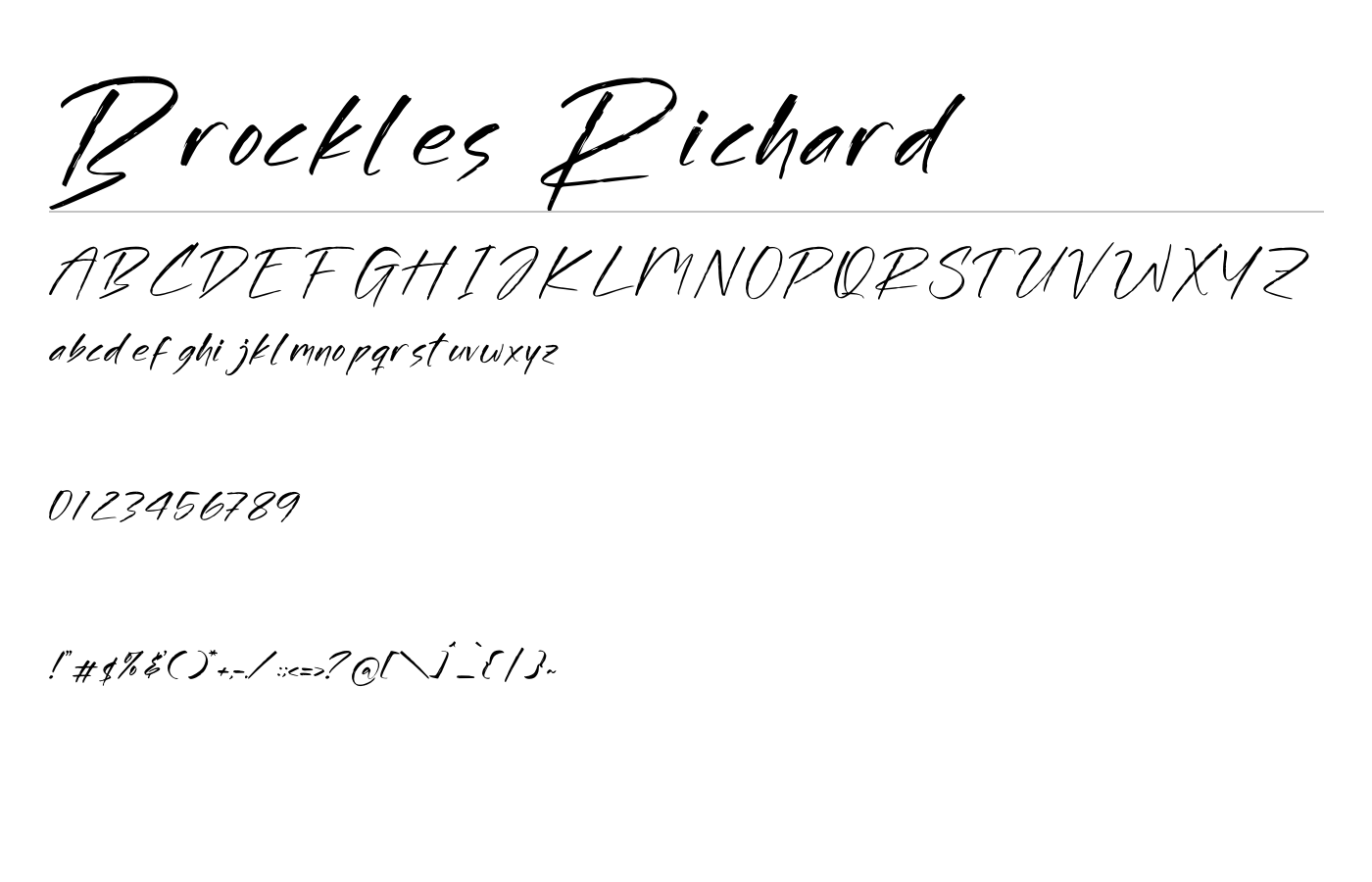
Brockles Richard is a slender, elegant script font with a hand-drawn feel that combines casual sophistication and fluidity. Its narrow, slightly irregular letterforms and fine strokes give it a personal and artistic touch, making it ideal for creative branding, invitations, or stylish editorial use where an intimate yet refined look is desired. This font works best in designs that benefit from a modern, handwritten aesthetic with a graceful flair.
Brockles Richard Font
About Brockles Richard Font